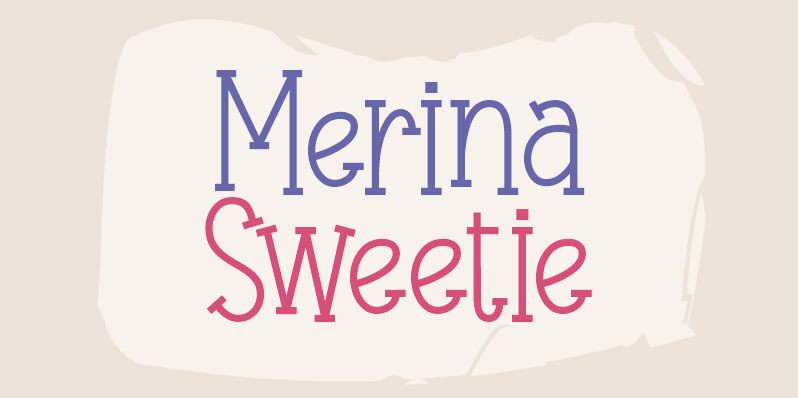
Merina Sweetie by 7NTypes is the perfect display font for all your cartoon-inspired projects. With its light weight and semi-condensed width, this font adds a playful touch to any design. Use it for children's book covers, party invitations, or even website headers. Merina Sweetie's quirky and fun style is sure to catch the eye of any viewer. Don't settle for boring fonts - make your designs stand out with Merina Sweetie!